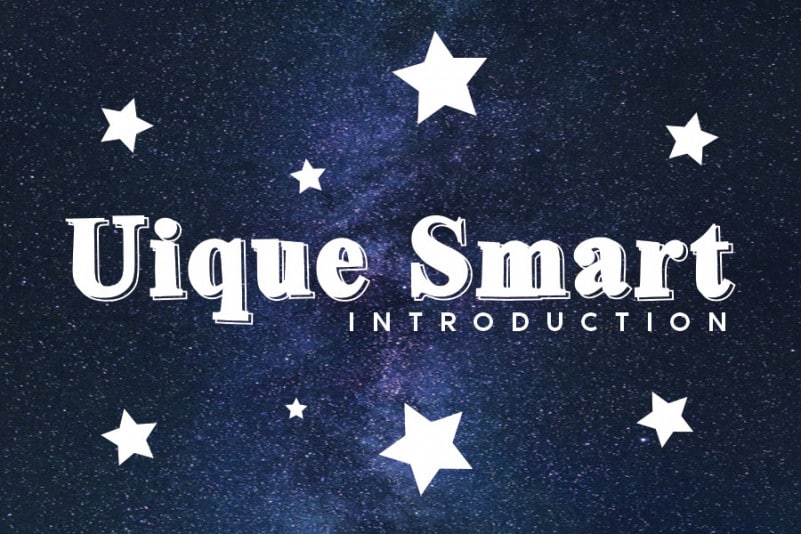
Balldisplay Display Font
Balldisplay Display Font is a fun and friendly display font. Clean and strong, this font is the perfect fit for all of your logos, branding, social media, and crafty DIY projects.
The latest style letters are perfect for wall displays, wedding invitations, social media post logos, advertisements, product packaging, product designs, labels, photography, watermarks, invitations, stationery, and any project that requires taste handwriting.